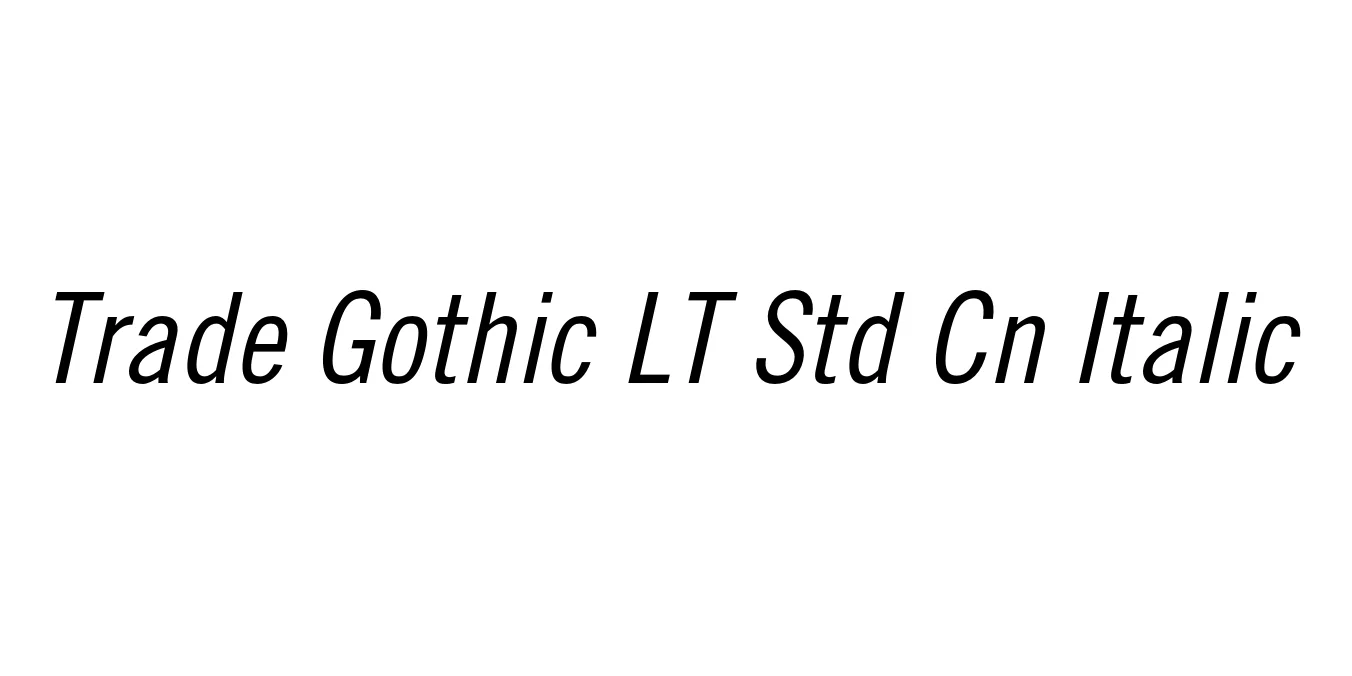
Trade Gothic LT Std Cn Italic
Designed by Jackson Burke
Trade Gothic LT Std Cn Italic is a quintessential member of the Trade Gothic family, originally designed by Jackson Burke in 1948. Unlike many other sans-serif typefaces that prioritize a strictly uniform appearance across all weights, Trade Gothic is celebrated for its slightly irregular and 'gritty' character. This condensed italic variant provides a sharp, professional look that excels in environments where space is at a premium but emphasis is required.
Over the decades, Trade Gothic has become a favorite in the world of advertising and editorial design. Its industrial roots give it a sense of reliability and directness that few other fonts can match. The condensed italic weight specifically allows designers to create complex typographic hierarchies, making it a versatile tool for everything from newspaper headlines to modern corporate branding projects.
Trade Gothic LT Std Cn Italic Best Uses
Excellent for high-impact titles in tight layouts.
Perfect for magazine sidebars and secondary headings.
Used for brands that want to convey a rugged, reliable, and professional image.
Great for punchy call-to-actions and promotional flyers.